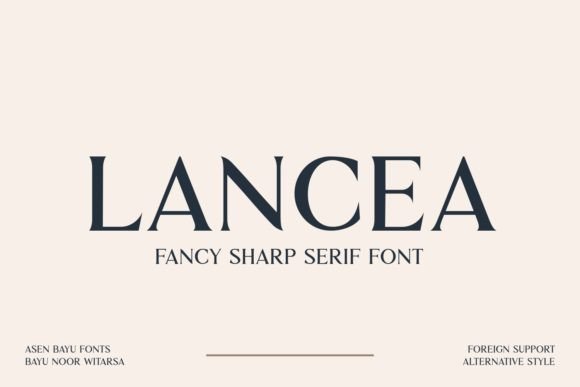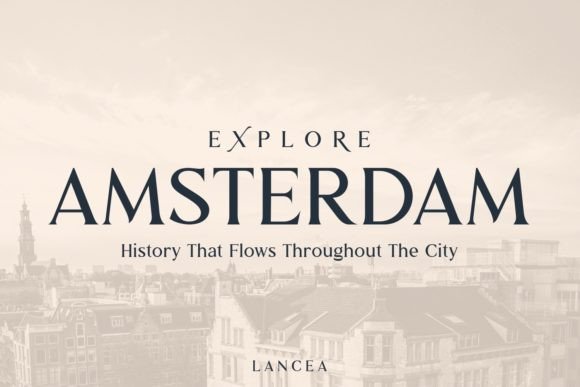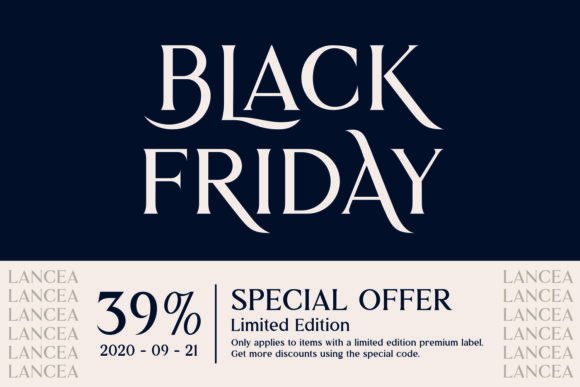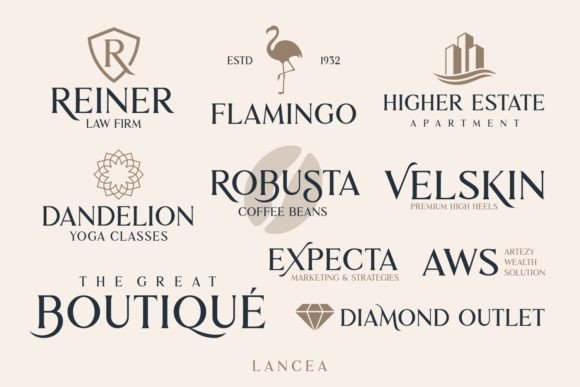
Lancea Font: Elegant Serif Typography for Luxury Logo Design & Branding
About the Lancea Font
Unleash your creativity with Lancea Font, a versatile font perfect for a wide range of applications. Lancea is a fancy sharp serif font. Inspired by medieval roman writing combined with the sharpness of a lance, Lancea gives a sophisticated feel with a sleek and clean accent. Lancea is perfect for a variety of projects such as luxury brand logos, journals, business cards, headlines, social media posts, and more. This font is PUA encoded which means you can access all the glyphs and alternates with ease!
Lancea’s sophisticated yet sharp personality makes it ideal for headlines, short text blocks, and branding applications requiring a touch of elegance and distinction. It excels in logo design, high-end packaging, and invitations where its refined serifs add a sense of classic authority. Avoid using Lancea for large blocks of body text or UI elements; its intricate details can become visually overwhelming in extended use.
Pairing Lancea effectively hinges on balancing its inherent formality. Consider a clean sans-serif like Montserrat or Lato for body text, providing a modern counterpoint to Lancea’s classical feel. For a more luxurious effect, a delicate script font such as Great Vibes or Allura can complement its refined aesthetic in secondary elements.
The overall mood of Lancea is refined and authoritative, suggesting brands with a heritage or a focus on luxury, quality, and precision. Its stylish sharpness is best utilized sparingly, allowing it to punctuate a design rather than dominate it.
Lancea Font Usage Examples
Lancea Font Example